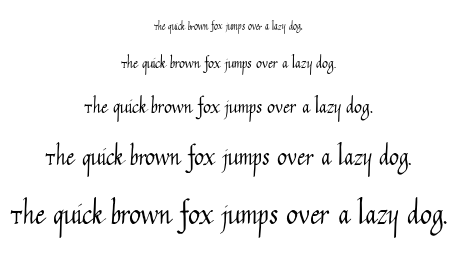
Calligraphy Unicase was a quick exercise I did while I was learning some calligraphy. It was quickly drawn, quickly scanned and converted into a typeface.